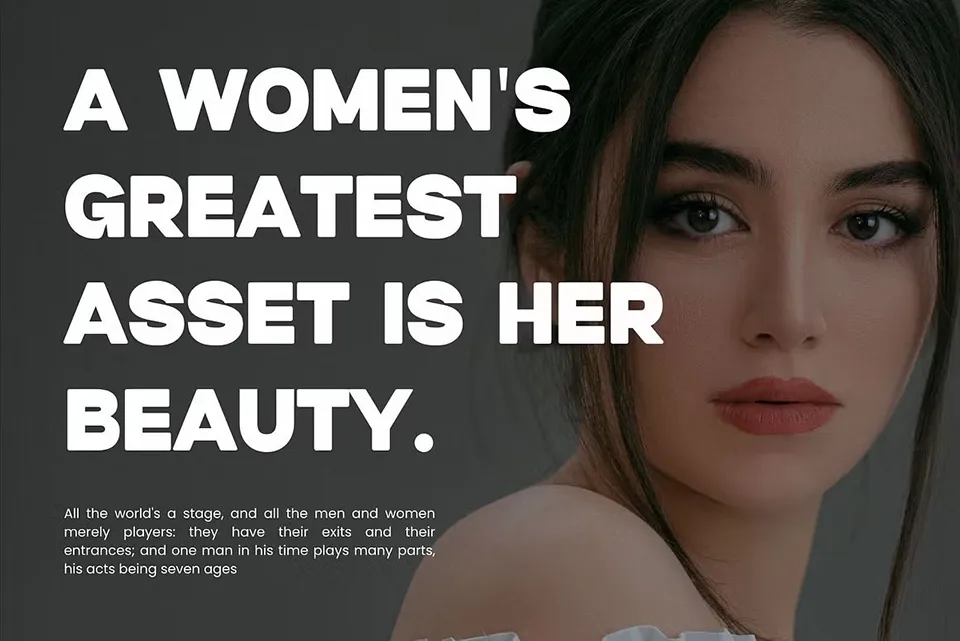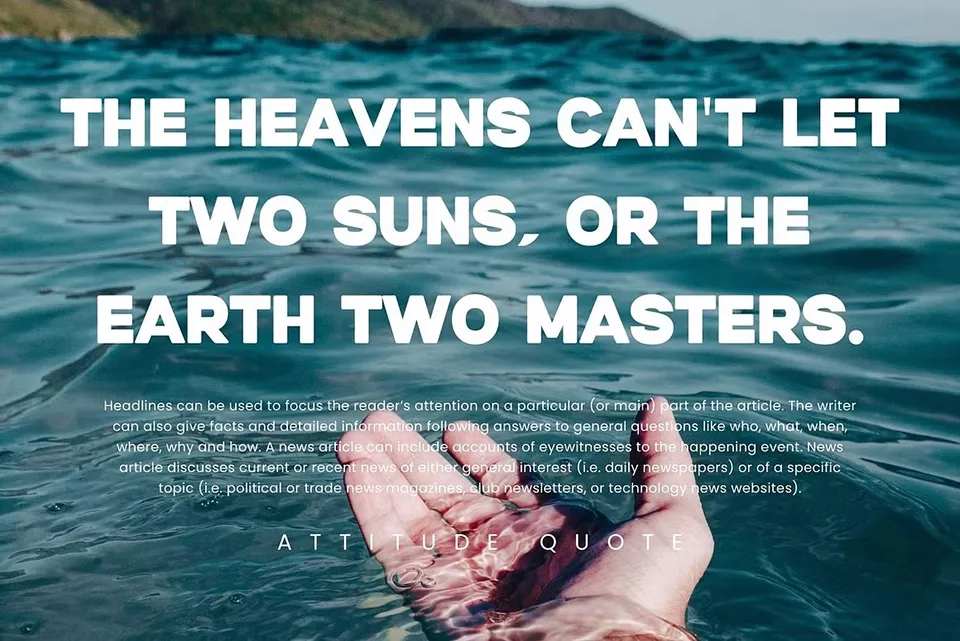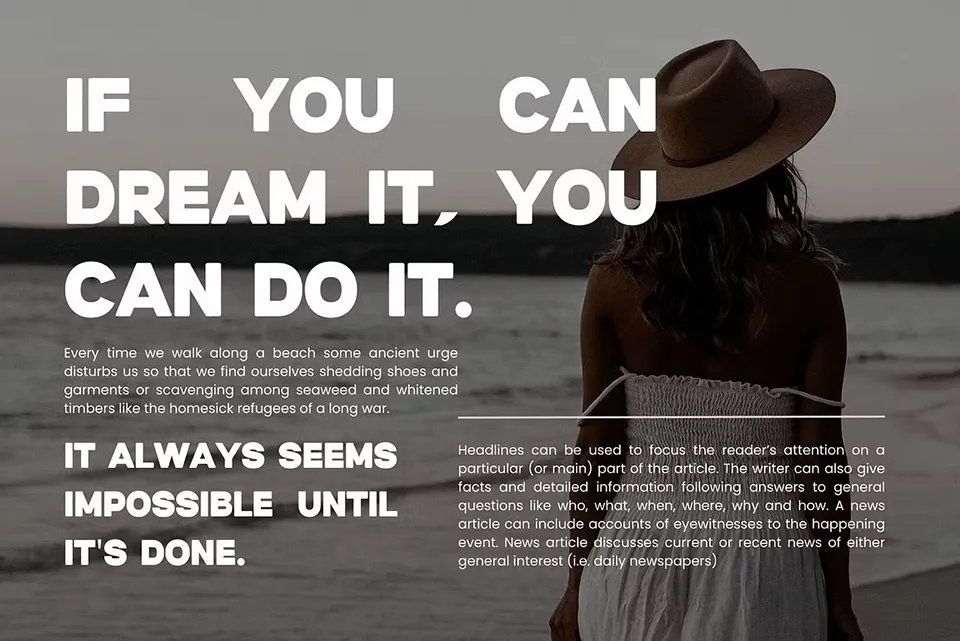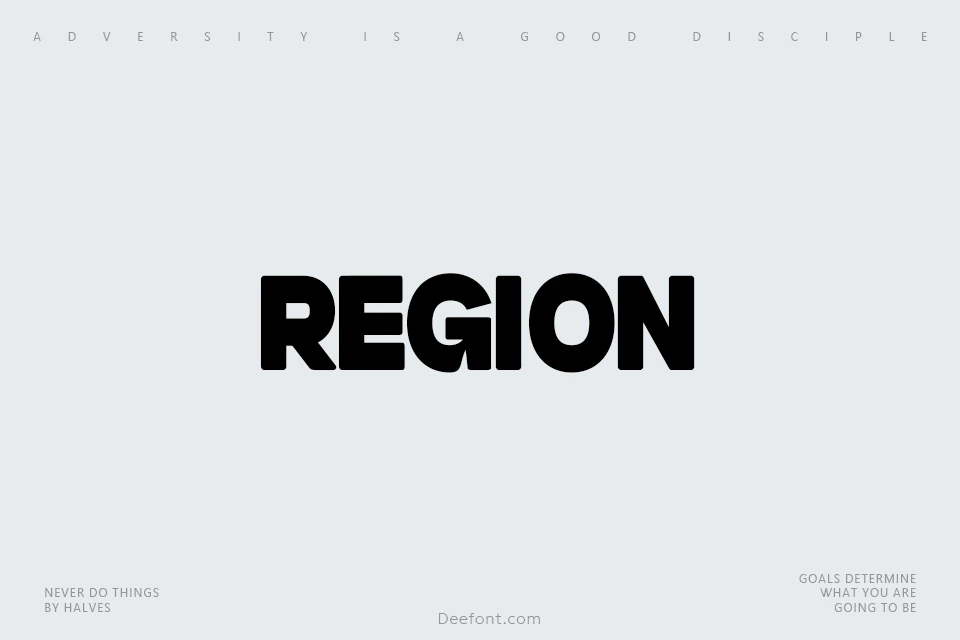
Region Font
Region Font is a modern sans serif font perfect for display purposes. With its clean and bold design, Region is ideal for making a statement in headlines, logos, and branding materials. This versatile typeface offers a contemporary aesthetic that works well in a variety of contexts, from web design to print layouts. Region’s simplicity ensures readability while maintaining a strong visual impact, making it an excellent choice for projects that demand attention. Elevate your designs with Region and give them a touch of modern sophistication.